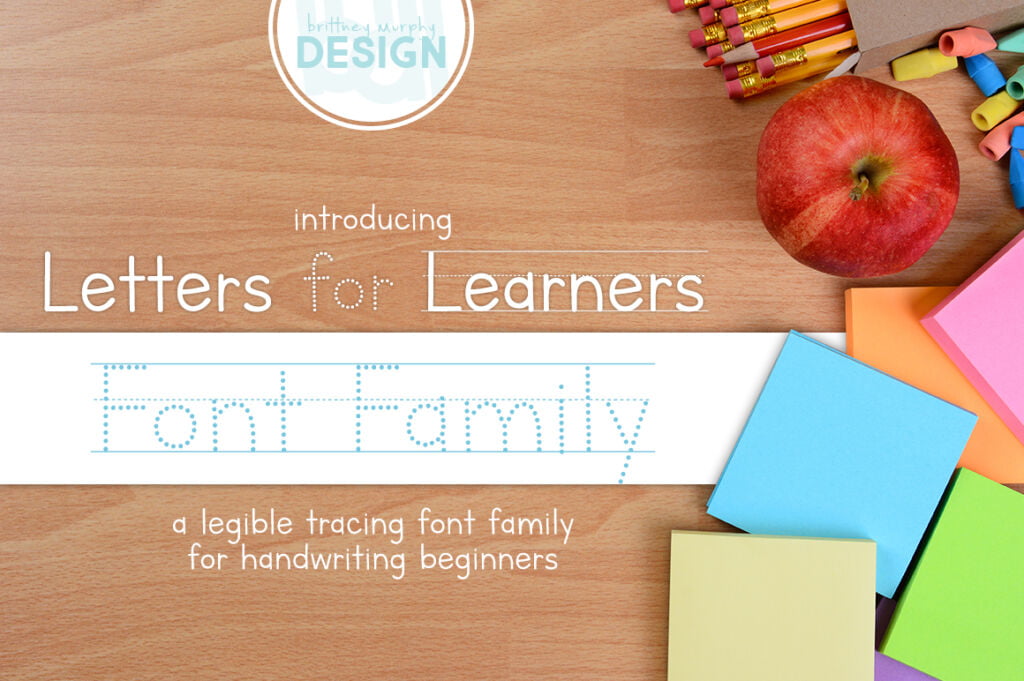
Letters For Learners
About the Letters For Learners Font Family
Letters for Learners Font Family is a friendly, legible type set designed with young students in mind. The design of this font group helps anyone wanting to create handwriting worksheets for their children or students. Designed to allow your student to see a sample, trace the dots, and then write it all on their own. Designed in 2017, Letters for Learners Font Family has been used in hundreds of classrooms across the world and is one of the fonts we are most proud of, and are so glad to assist students everywhere in growing their handwriting skills.
The Font Family Includes
Letters For Learners Font – A solid handwritten version
Letters For Learners Dots Font
Letters for Learners Lined Font
Letters for Learners Lined Dots Font
Letters for Learners Outline
Each of these has over 300 characters, including many international letters.
Also, in the plain solid and dotted versions, you can use the ^ symbol for a lined space.
The Full version comes with 3 outline versions as well as the “hatted” J versions if you need that for your elementary handwriting font.